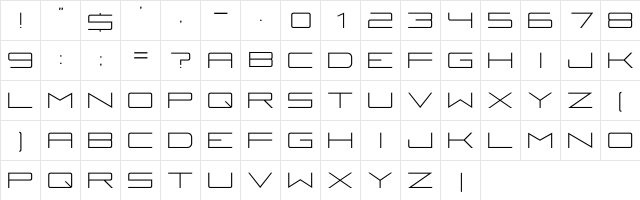
Fireye GF Lite
Design Context for Fireye GF Typeface
Fireye GF takes a measured approach to typography — its balanced proportions and neutral character make it a reliable workhorse for both digital and print work.